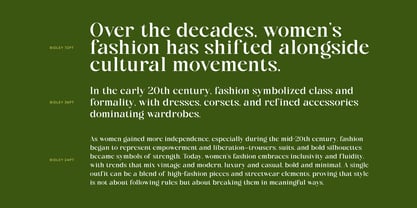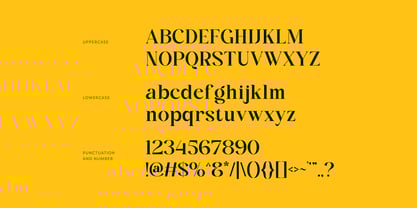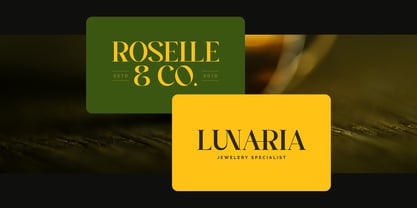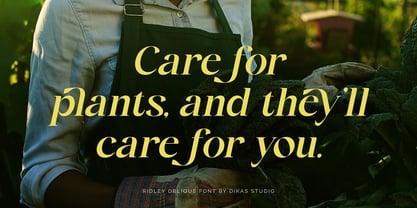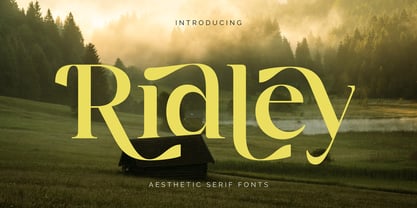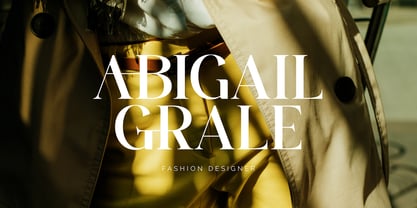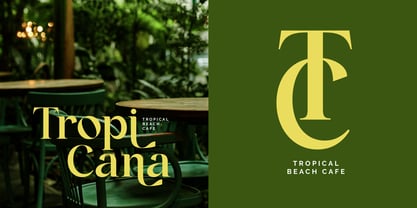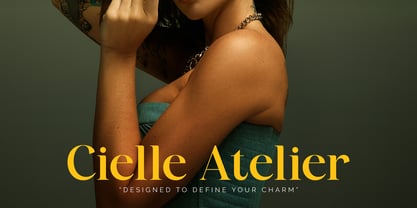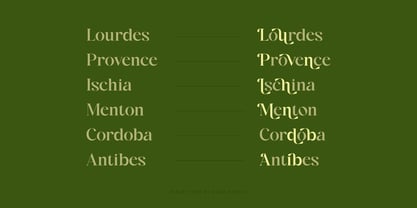
Ridley
by Dikas Studio
The Ridley Font Family was designed by Andika Setiawan, Hasnul Bolkiah and published by Dikas Studio. Ridley contains 2 styles.
Ridley is an aesthetic serif font with a subtle touch of retro charm. Designed in two styles — Regular and Oblique, it offers flexibility for both classic and expressive designs. Its flowing alternate characters create beautiful, curving forms that bring elegance and creativity to your typography. Perfect for logotypes, headlines, and titles, Ridley combines timeless serif structure with artistic flair to make every word stand out.
Designers: Andika Setiawan, Hasnul Bolkiah
Publisher: Dikas Studio
Foundry: Dikas Studio
Design Owner: Dikas Studio